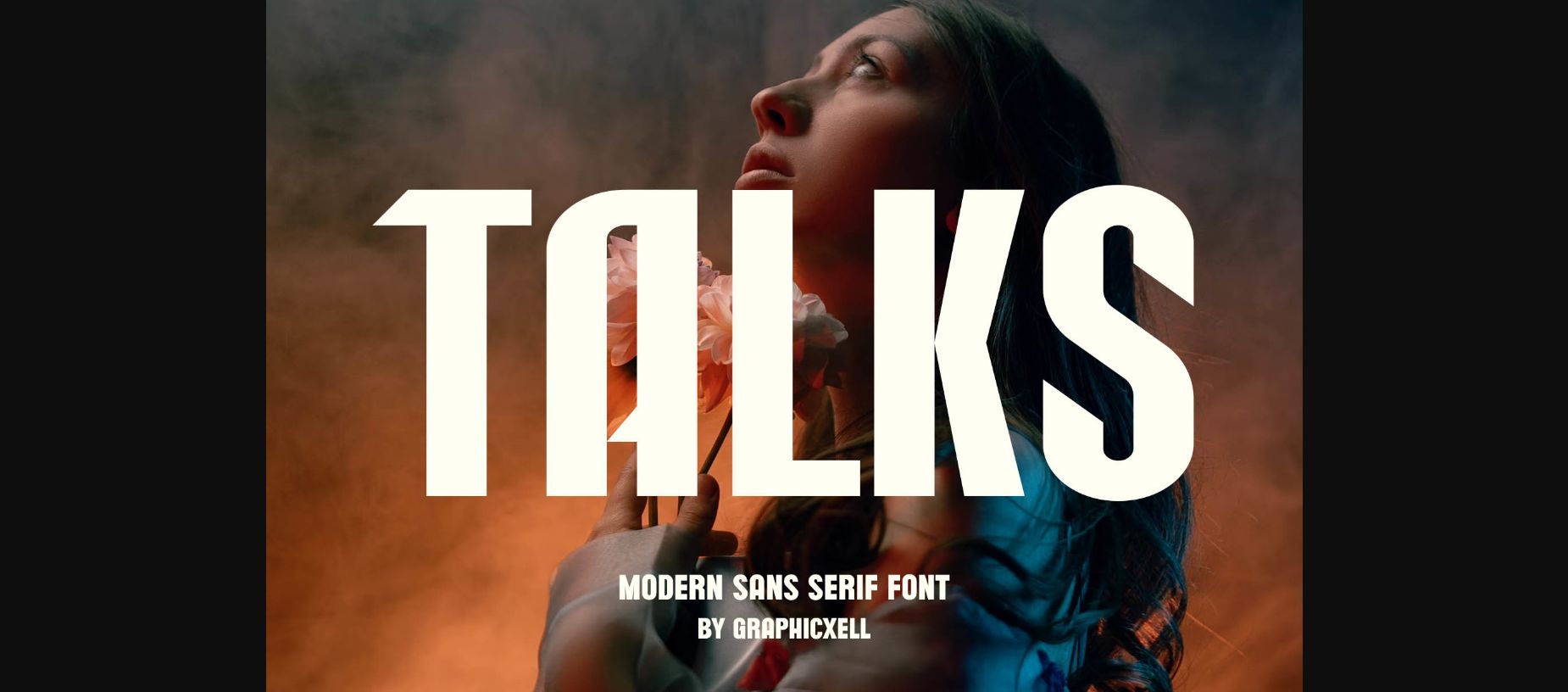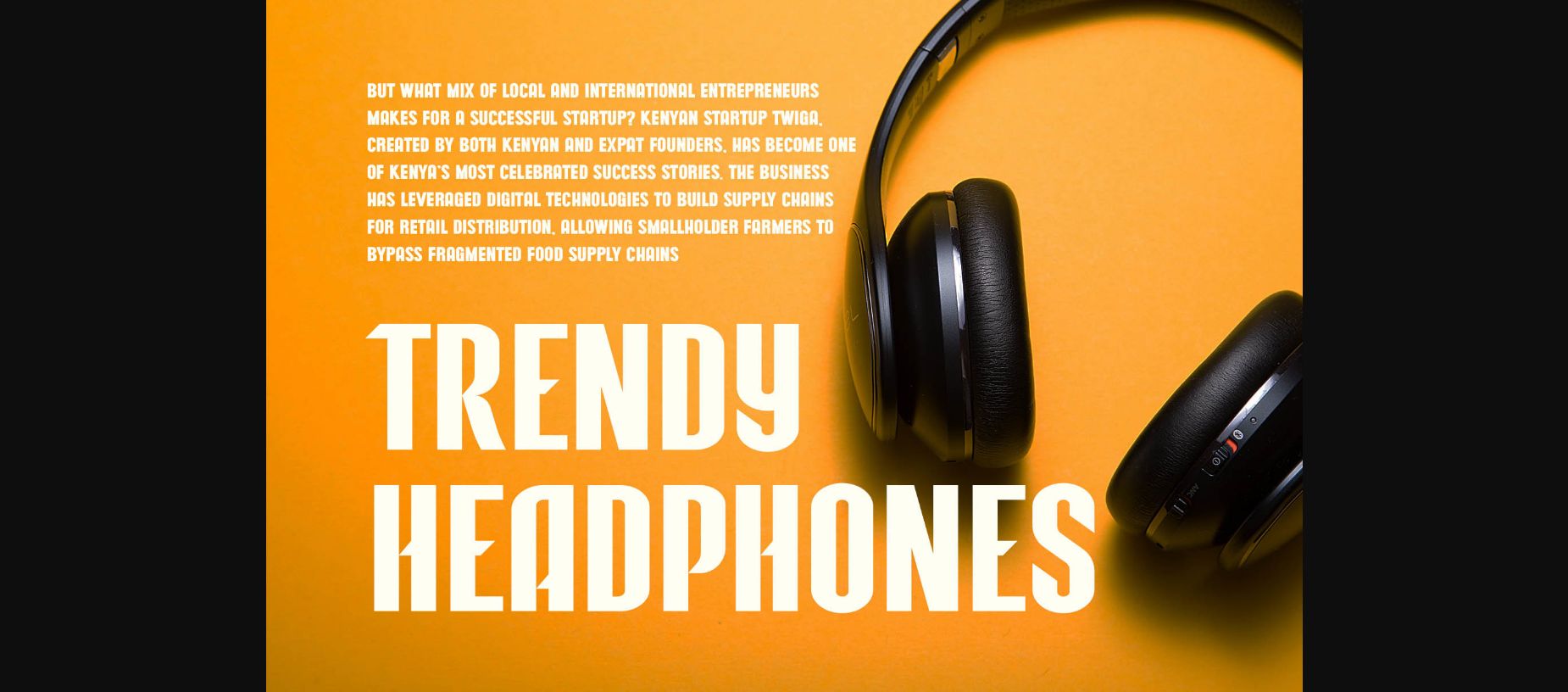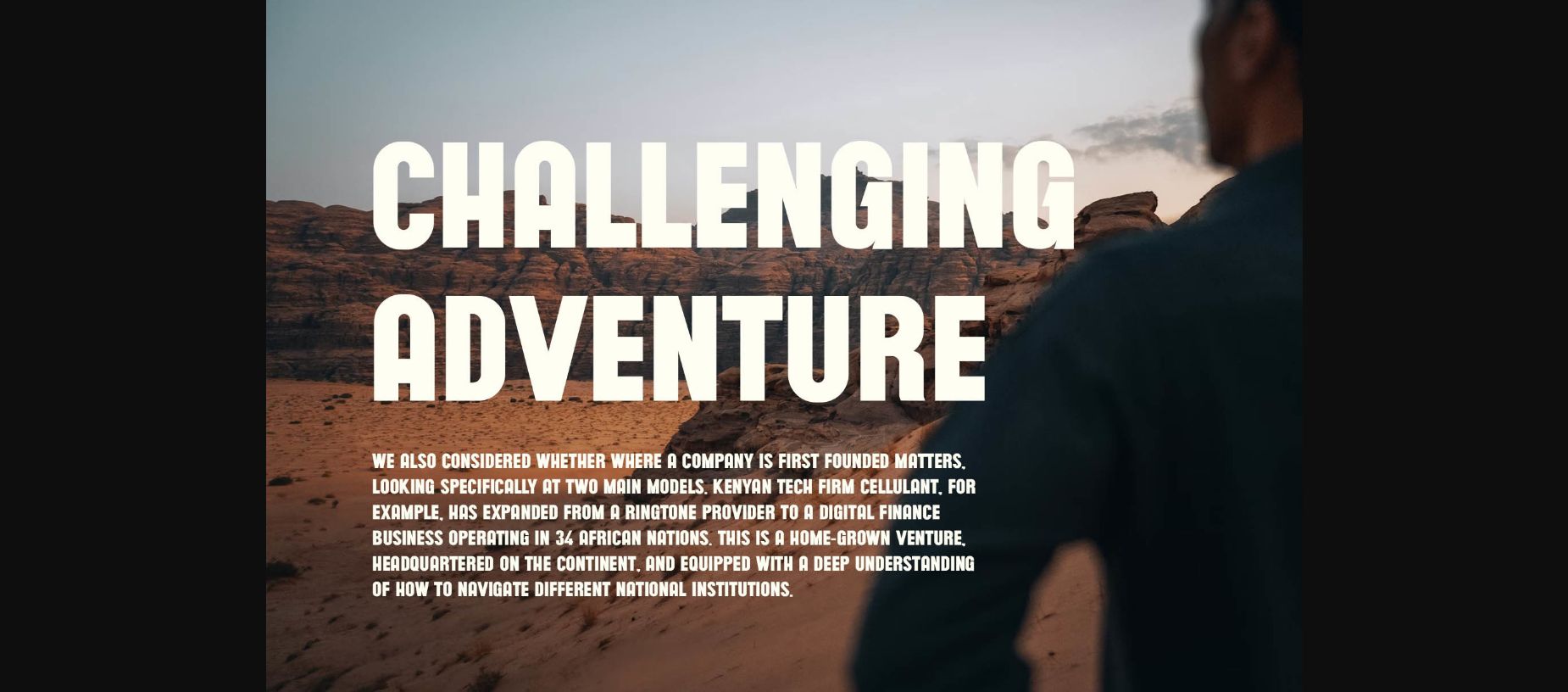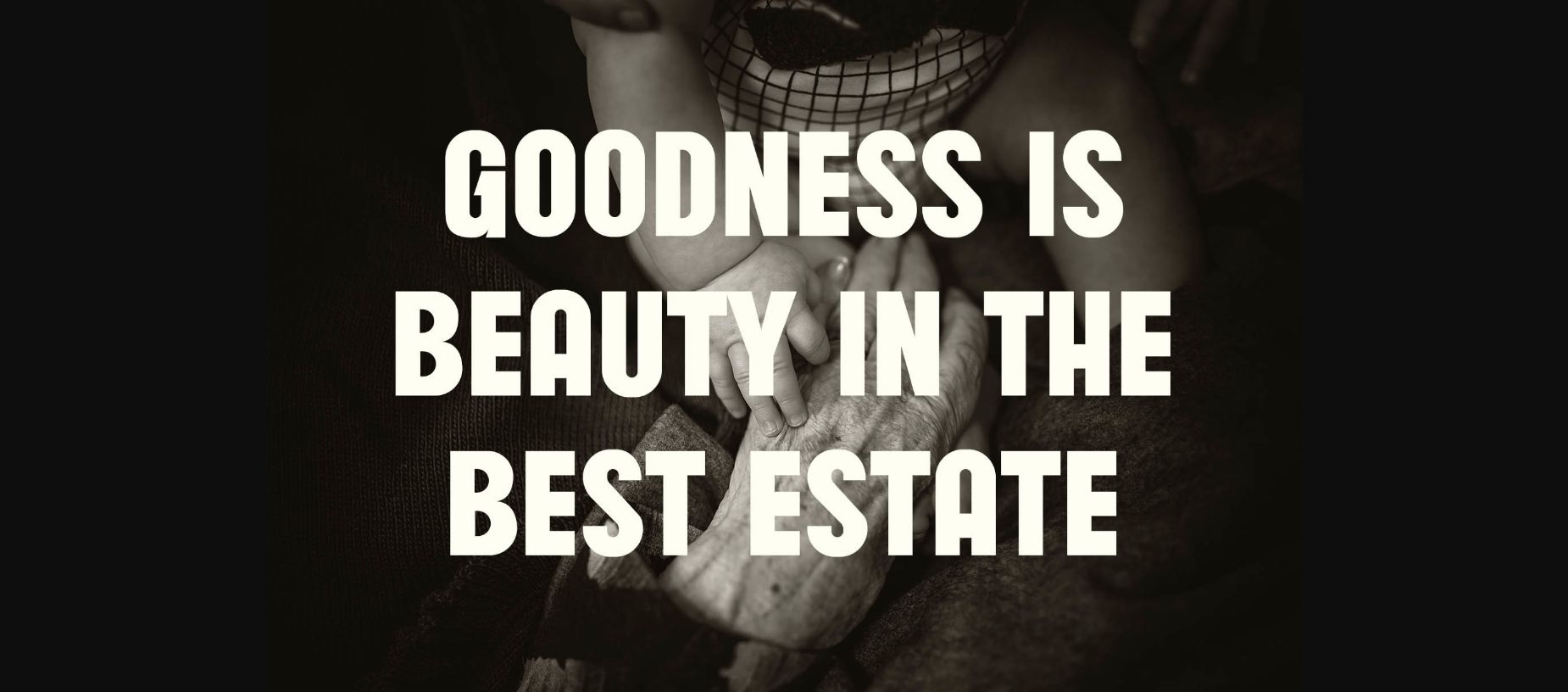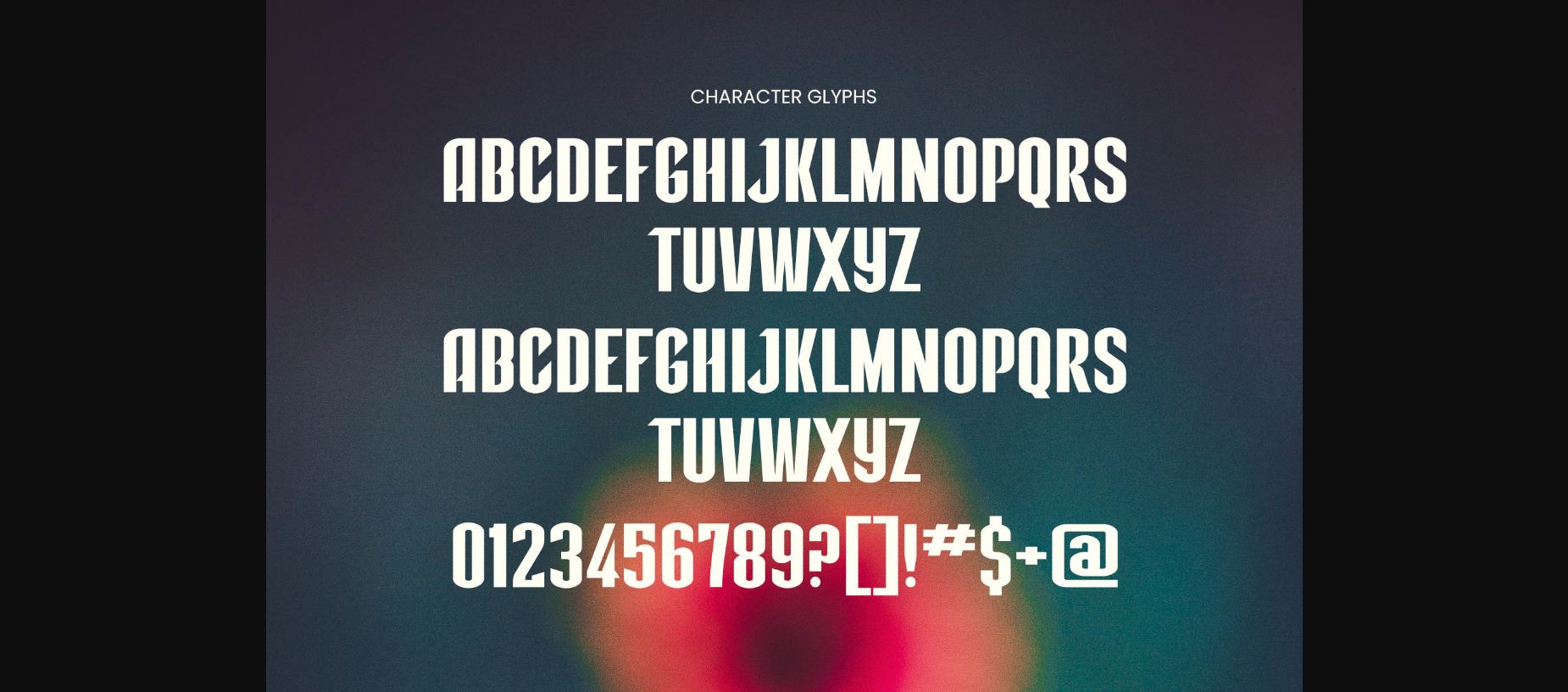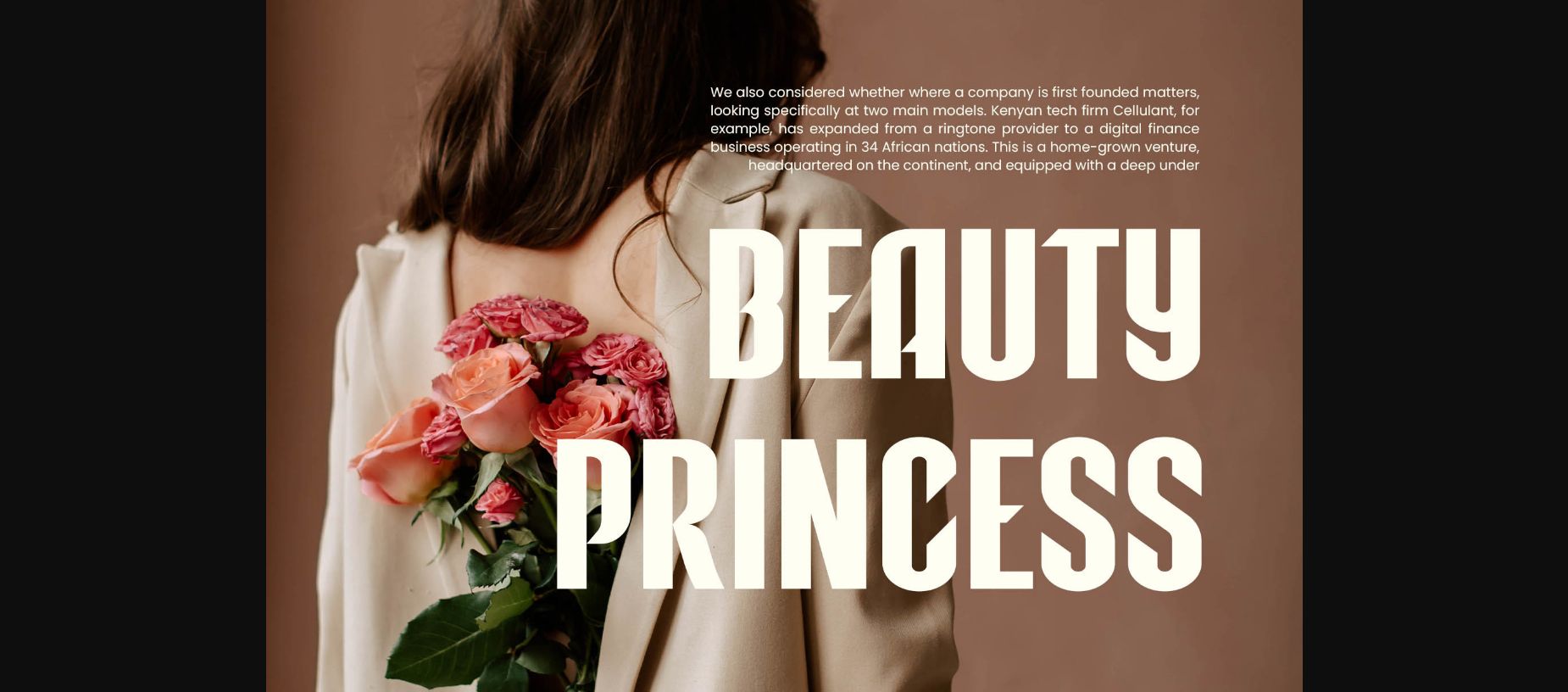
Inspired by the famous minimalist logo, Talks is perfect for the purpose of designing templates, brochures, videos, advertising branding, logos, invitation, layout designs, elegant crafting, beauty designs and so much more